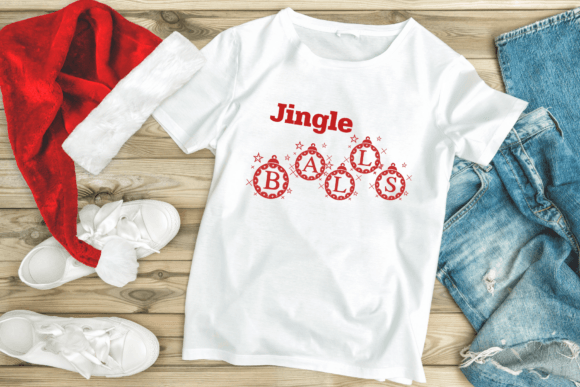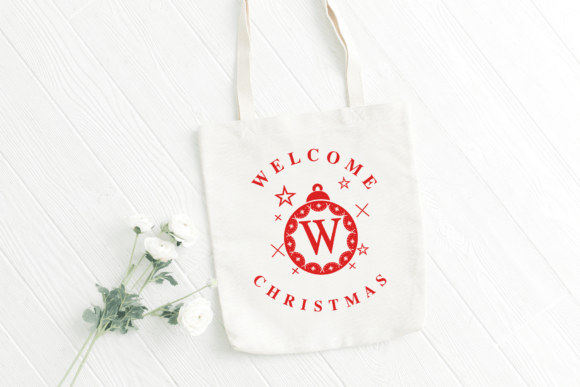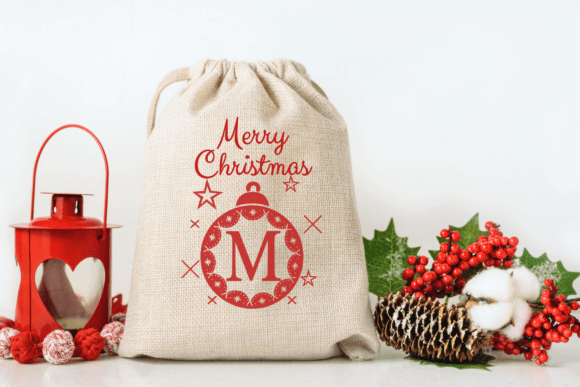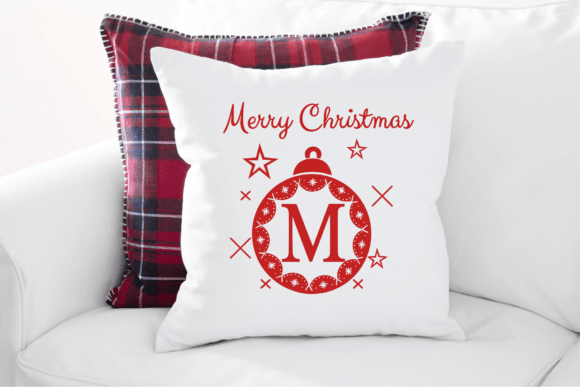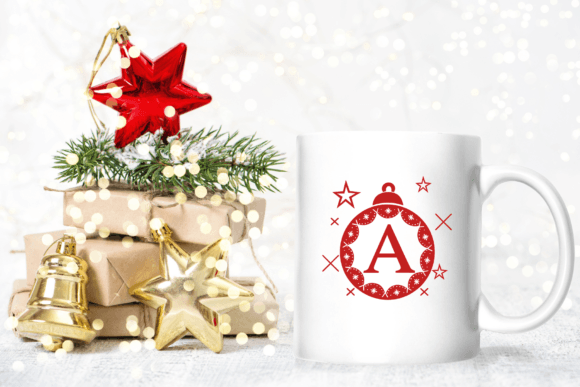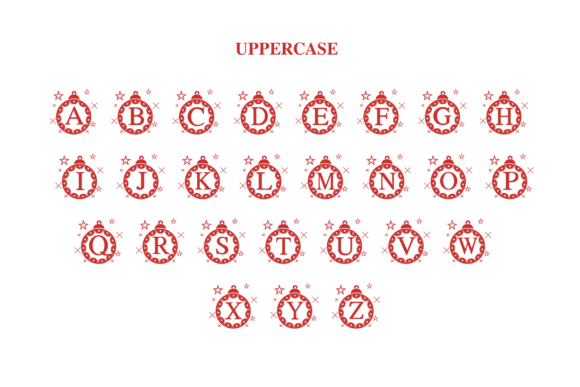
Introduction to Christmas Ball Monogram Font
As a designer, there’s nothing quite like the rush of creativity that comes with planning a holiday project. Whether it’s a festive Christmas card, a cozy farmhouse decoration, or a fun craft project for the kids, the possibilities are endless. And for those special touches that make your design truly shine, a unique and eye-catching font can be the perfect finishing touch.
That’s where the Christmas Ball Monogram Font comes in – a delightful, decorative font that’s sure to add a touch of magic to any holiday design. With its charming, hand-drawn look and transparent background, this font is a valuable resource for designers looking to create high-quality, one-of-a-kind projects.
Not only is the Christmas Ball Monogram Font a great design resource for holiday-themed projects, but its versatility also makes it a must-have for any creative project. From free downloads to printables, the possibilities are endless, and we’re excited to dive in and explore the many uses of this enchanting font.
Key Features of Christmas Ball Monogram Font
- Unique and elegant design with intricate details, perfect for a creative project like a Christmas card or gift tag.
- Features a transparent background, allowing for easy customization and flexibility in design.
- Perfect for adding a touch of elegance and festivity to your Christmas designs, with its beautiful monogram style.
Honest Review: Christmas Ball Monogram Font
One of the standout features of this font is its high quality. The design is crisp and clear, making it perfect for use on a transparent background or in a variety of design settings.
- ✨ Versatile and can be used on a transparent background
- ⚠️ Limited font variations – only a few styles are available
Overall, I’m really impressed with the Christmas Ball Monogram Font. It’s a great addition to any design library and can add a touch of festive flair to any creative project. With its high quality and versatility, it’s definitely worth checking out.
How to Use Christmas Ball Monogram Font
Design Resource Tips
Use the Christmas Ball Monogram Font as a design resource for your holiday projects. Experiment with different color combinations and styles to get the most out of it. Consider downloading other free design resources to complement your project’s theme and style.
The Christmas Ball Monogram Font is ideal for various creative projects such as holiday invitations, gift tags, social media graphics, and festive decorations. You can also use it for personal projects like customized ornaments or gift wrapping.